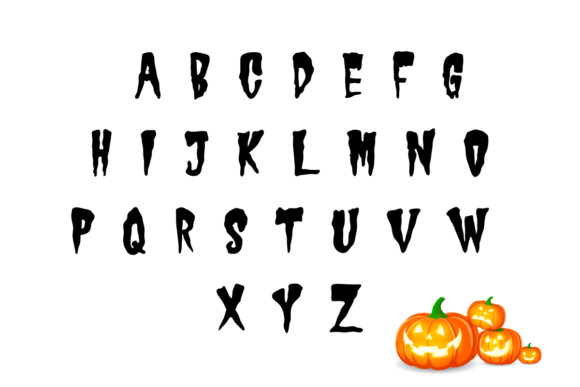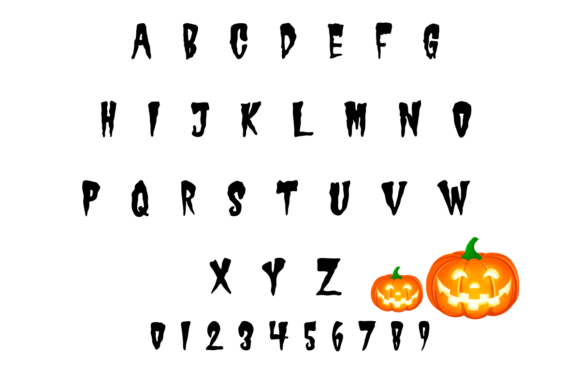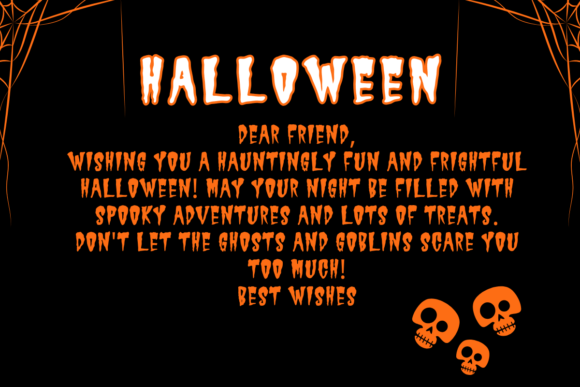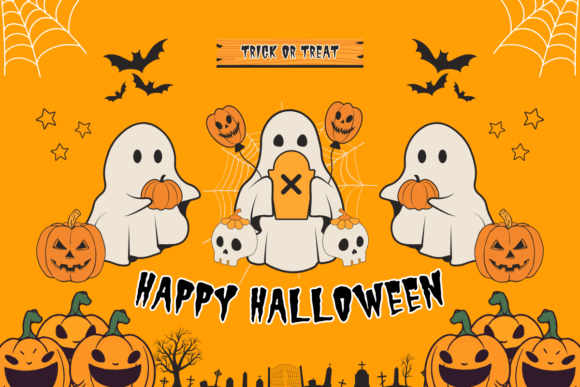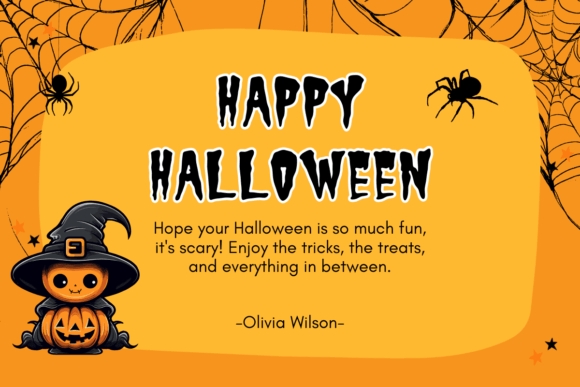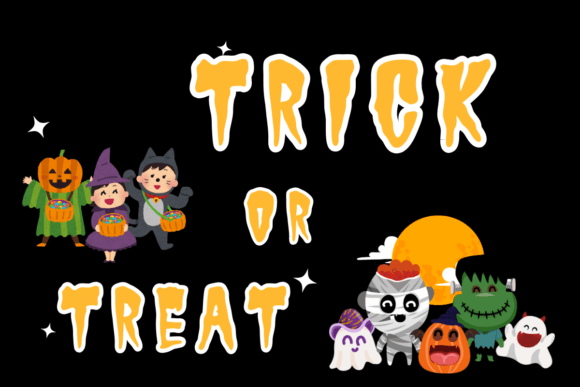
Happy Halloween Day Font: A Spook-tacular Addition to Your Design Collection
As the spookiest day of the year approaches, designers and crafters are on the lookout for the perfect font to add a touch of eerie elegance to their creations. Look no further than the Happy Halloween Day Font, an incredibly unique and spooky display font that’s sure to become a true favorite in your collection.
What Makes Happy Halloween Day Font So Special?
Masterfully designed to bring your creative ideas to the highest level, the Happy Halloween Day Font is a true masterpiece. Its unique blend of spooky and playful elements makes it perfect for a wide range of design projects, from Halloween-themed invitations and decorations to horror movie posters and haunted house signage.
Key Features of Happy Halloween Day Font
- Unique and Spooky Design: The Happy Halloween Day Font boasts a one-of-a-kind design that’s sure to grab attention and send shivers down the spine.
- Highly Versatile: Whether you’re working on a Halloween-themed project or just want to add a touch of spookiness to your design, this font is perfect for a wide range of applications.
How to Use Happy Halloween Day Font in Your Designs
The Happy Halloween Day Font is incredibly versatile, making it perfect for a wide range of design projects. Here are just a few ideas to get you started:
- Halloween-themed Invitations and Decorations: Use the Happy Halloween Day Font to create spooky and inviting Halloween-themed invitations, decorations, and party decor.
- Horror Movie Posters and Promotional Materials: Add a touch of eerie elegance to your horror movie posters, flyers, and other promotional materials with the Happy Halloween Day Font.
- Haunted House Signage and Marketing Materials: Use the Happy Halloween Day Font to create spooky and eye-catching signage and marketing materials for haunted houses and other Halloween attractions.
- Crafting and Scrapbooking Projects: Add a touch of spookiness to your crafting and scrapbooking projects with the Happy Halloween Day Font, perfect for creating unique and eye-catching Halloween-themed cards, gift tags, and other decorative items.
Tips and Tricks for Getting the Most Out of Happy Halloween Day Font
To get the most out of the Happy Halloween Day Font, here are a few tips and tricks to keep in mind:
- Experiment with Different Colors and Textures: Don’t be afraid to experiment with different colors and textures to add depth and interest to your designs.
- Combine with Other Fonts and Graphics: Combine the Happy Halloween Day Font with other fonts and graphics to create unique and eye-catching designs.
- Use in Combination with Images and Illustrations: Use the Happy Halloween Day Font in combination with images and illustrations to add a touch of spookiness and personality to your designs.
In conclusion, the Happy Halloween Day Font is an incredibly unique and spooky display font that’s sure to become a true favorite in your design collection. With its highly versatile design, ease of use, and instant download, this font is perfect for designers and crafters looking to add a touch of eerie elegance to their creations. So why wait? Download the Happy Halloween Day Font today and start creating your own spook-tacular designs!